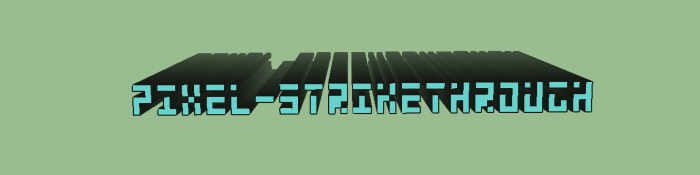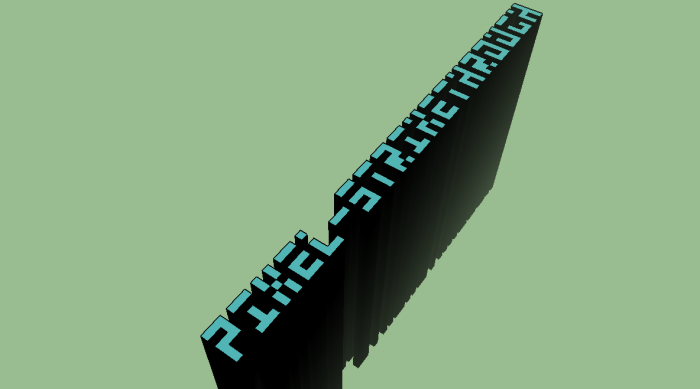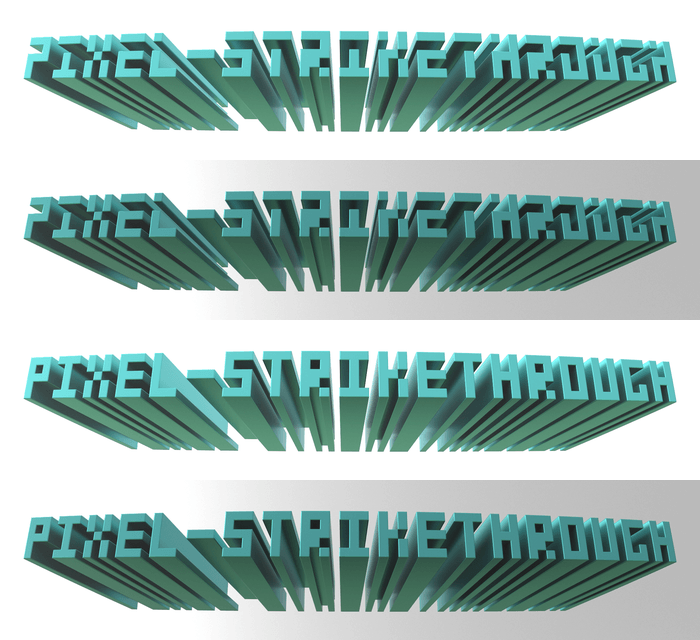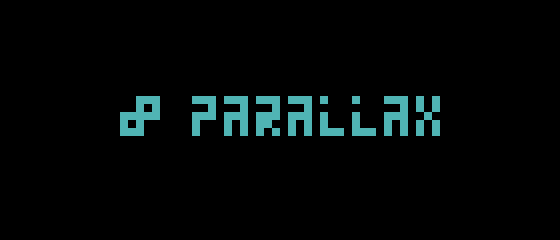
• JUST A SIMPLE 3×5 PIXEL FONT. THE CAPITALS HAVE A WHITE STRIKETHROUGH.
After my latest message about your "CASIO-Calculator-Font", I think I already tried this style of design in the early 1990s (even in late 2017 in "AGH" – see at the end of this picture).
But yours is (Latin) extended (thus potentially a lot more useful). I might compare your font to my similar ones (3x5) in the future.
In pixel art, there are several ways to strikethrough. You opted for a partial and strictly top (and left) degradation (pixel removal), while a more advanced/complicated choice would be to replace the missing hole with a perceived shiny dot (invisible eventually, of course, although you might want to put a color to a hi-res draft, in 3D ideally). This trick works pretty well. I remember I used it in a signature of mine {but this Speccy image -too- is still pending an upload because of copyright concerns pertaining to my main typeface}…
OK, here it is, compared with your version. The optical illusion (direction of light – from the top in this very common case) might rely on the weight (thus the absence of square style in this signature), but more essentially on physically correct (not too incorrect) reflections (even at this very small scale of 3x4 letters). A complete strikethrough raises many ambiguities from the related degradations (low-res art is more fragile by essence since it contains fewer data). My choice was a compromise here: almost all the characters can be altered (± correctly) thanks to the 'flexible' positions (even though the nature of the line changes by the way, from an erasure to a reflection).
P.S. Another sample (with these 4 letters) in this ZX Spectrum image (duly online), in 3x3(!) this time [after a chart of mine, dedicated to the -skilled- Speccy artists].
Erratum: I widened your 3x5 into 4x5 for the easier comparison with my 4x4 (of course, and sorry – though it made sense).
Nice! (Logo remade by Vilnisr in 2011.)
Now I see -some of- your inspiration (the current generation v.s. the letter paintings -never fonts- in 1980s beach surfing / car customization and the further home computer demoscenes of the 1990s). This makes sense too! (less in a voxel editor that uses lighting physics, as in the freeware MagicaVoxel.)
That's weird, I wrote a comment explaining why I uploaded a picture of the Star Trek: The Next Generation logo, but it seems to have disappeared. Not the first time it's happened for me on FontStruct. Anyway, I basically said that instead of making another regular pixel font, I made it in the 80's strikethrough style.